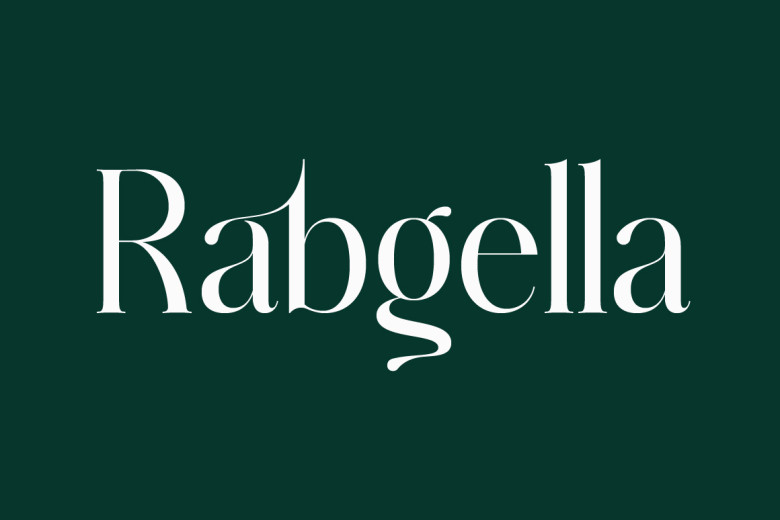
Rabgella Font
Rabgella modern and classic serif font with a unique style was created with you in mind! This typeface is perfect for an elegant & luxury logo, book or movie title design, fashion brand, magazine, clothes, lettering, quotes, and so much more.
Rabgella Serif Font